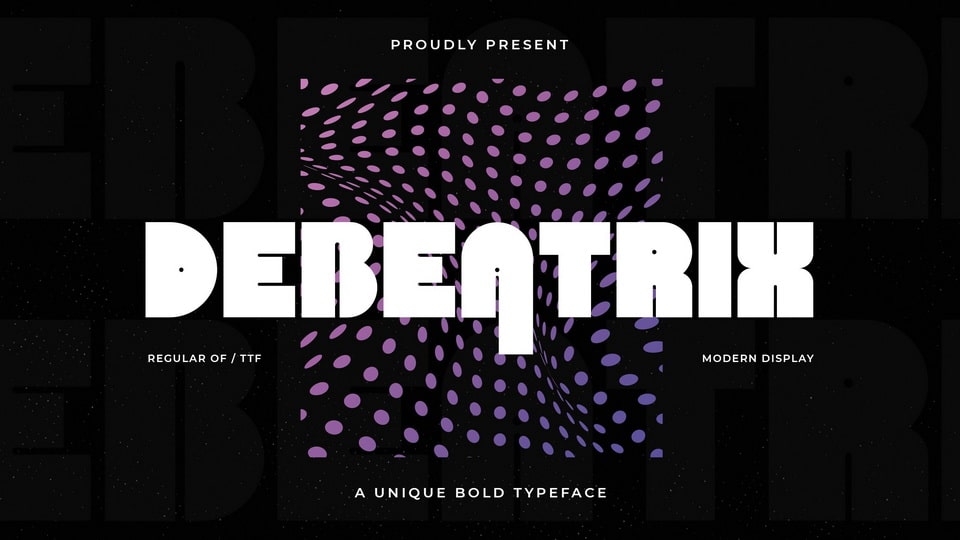
Download Debeatrix font, a display typeface, carefully handcrafted to become a true favorite. Its casual bold font charm makes Debeatrix appear wonderful down-to-earth, readable, ultimate, and versatile.